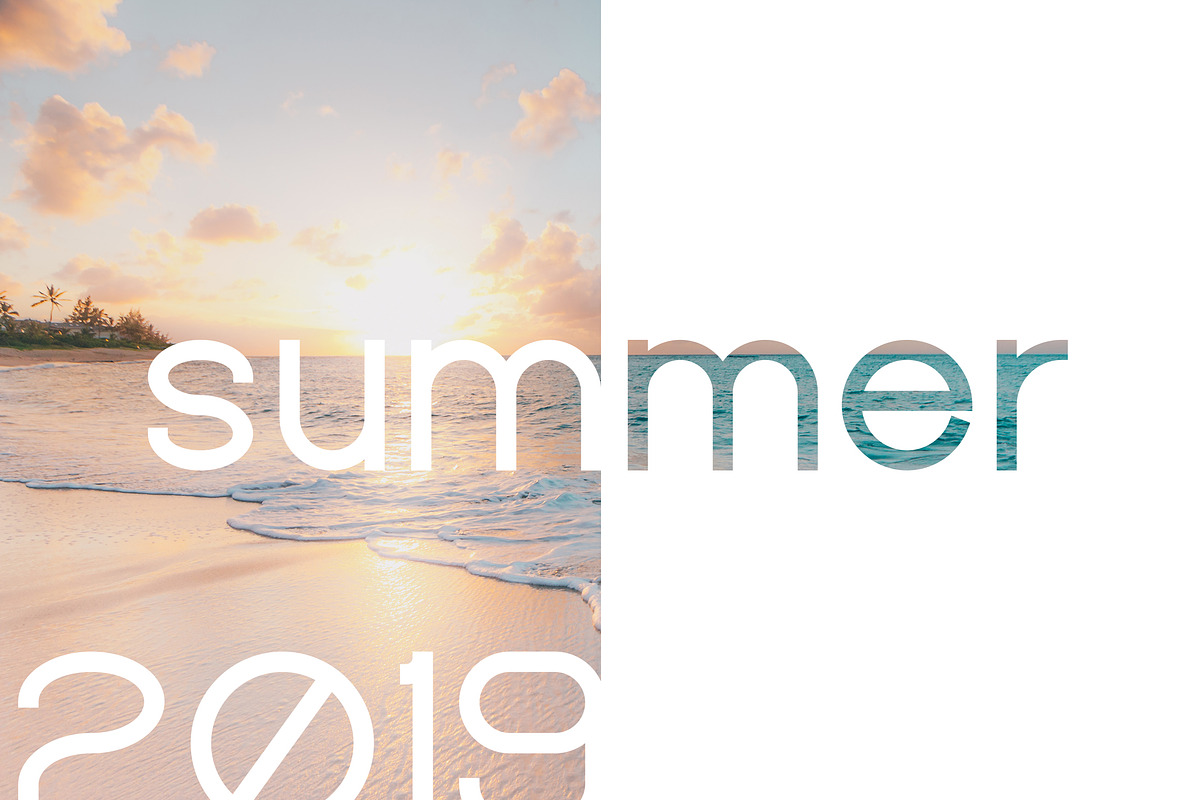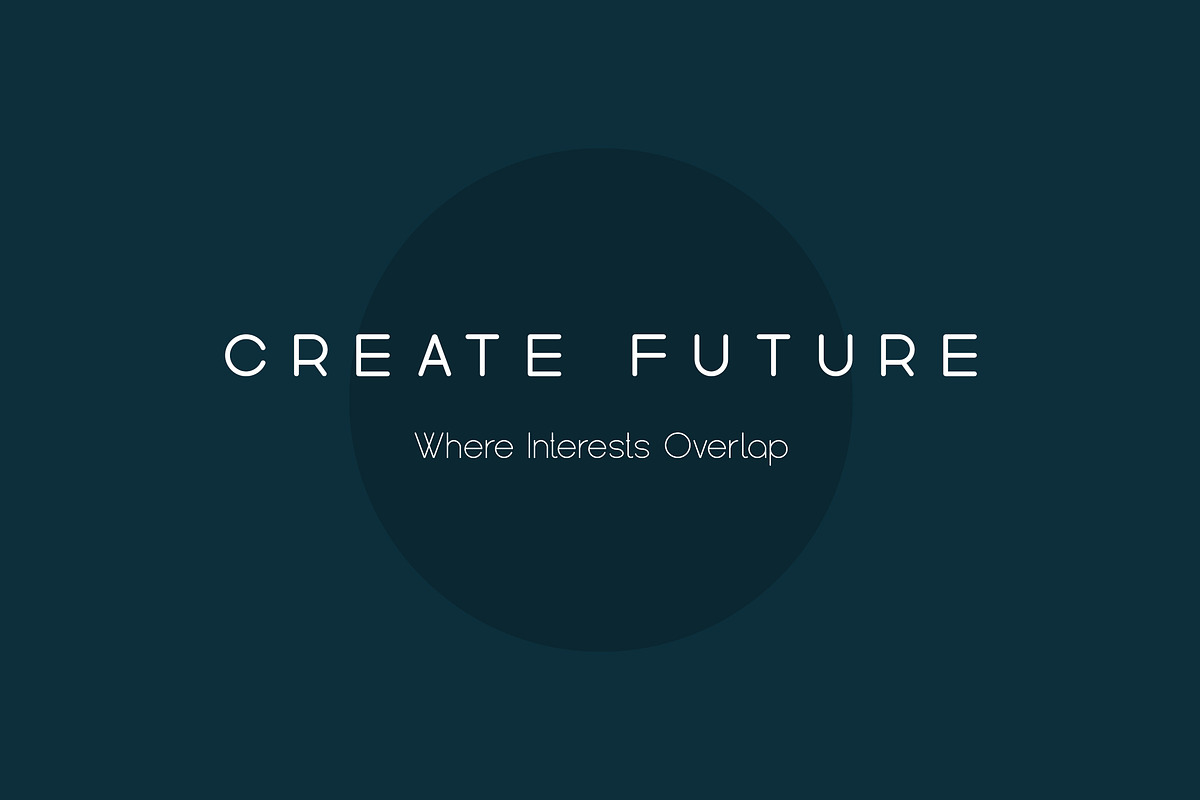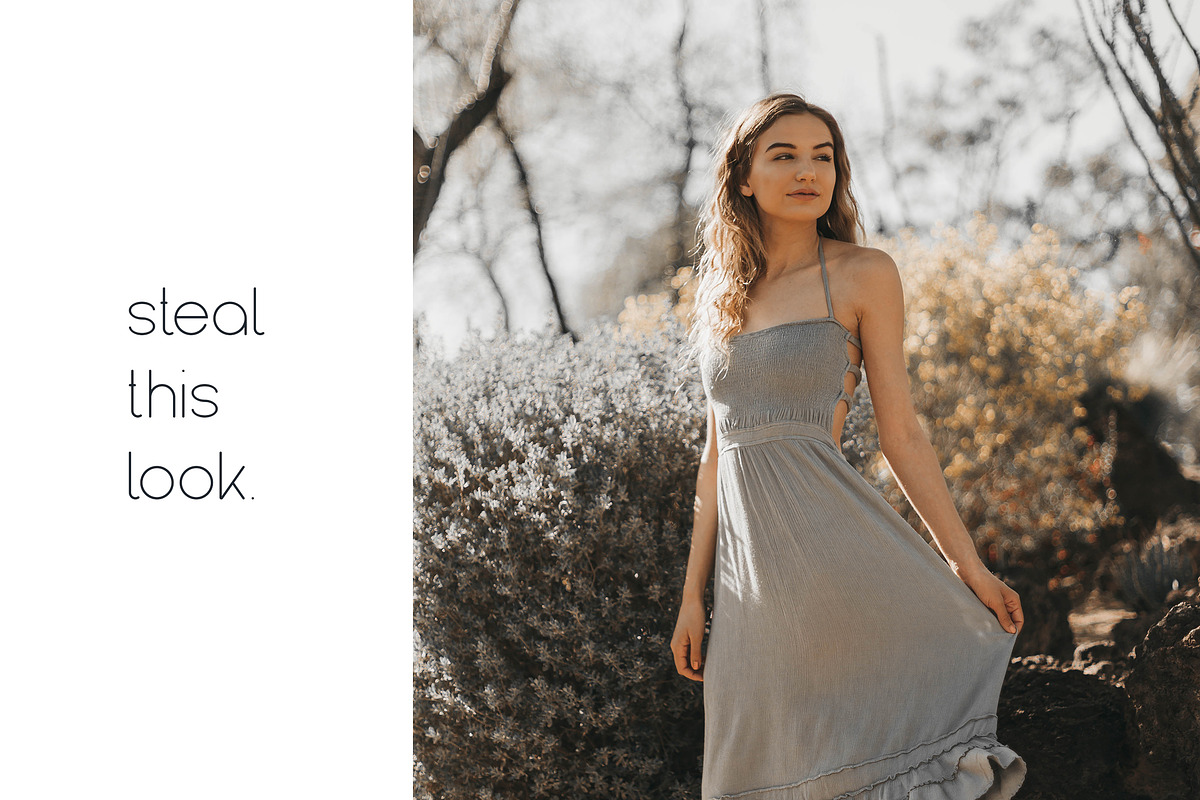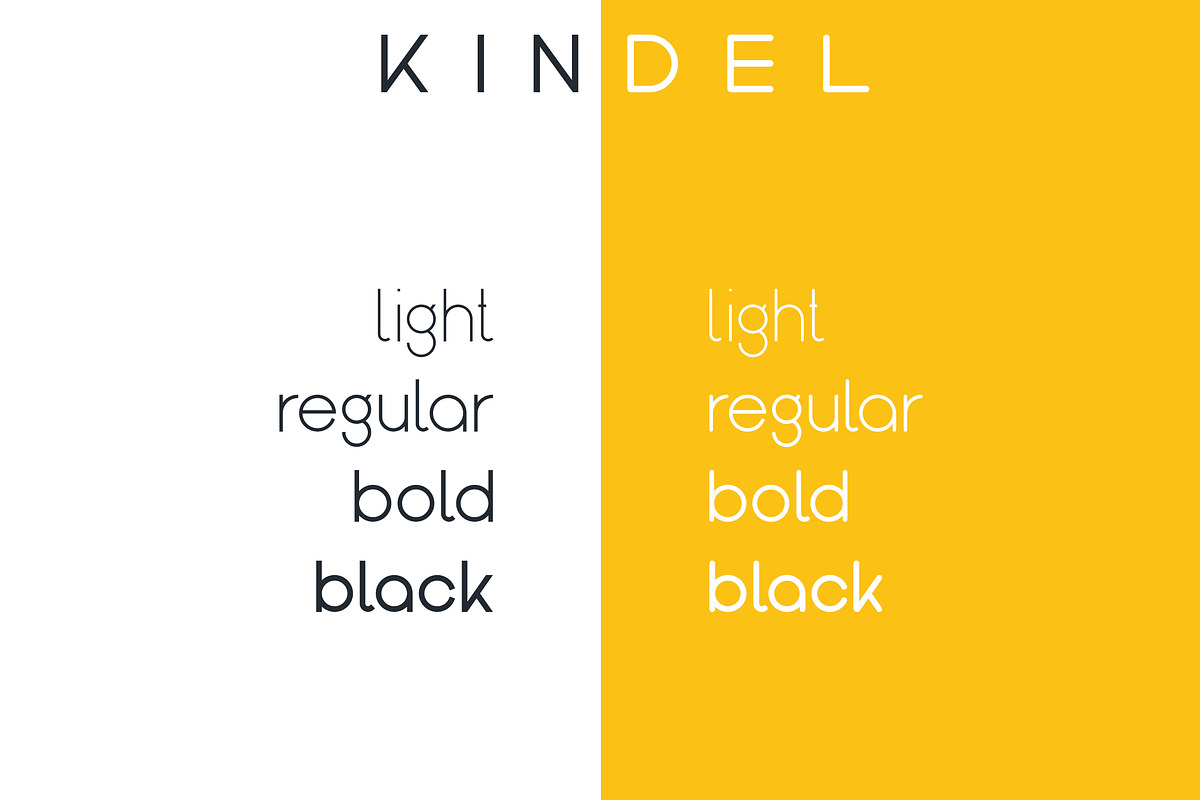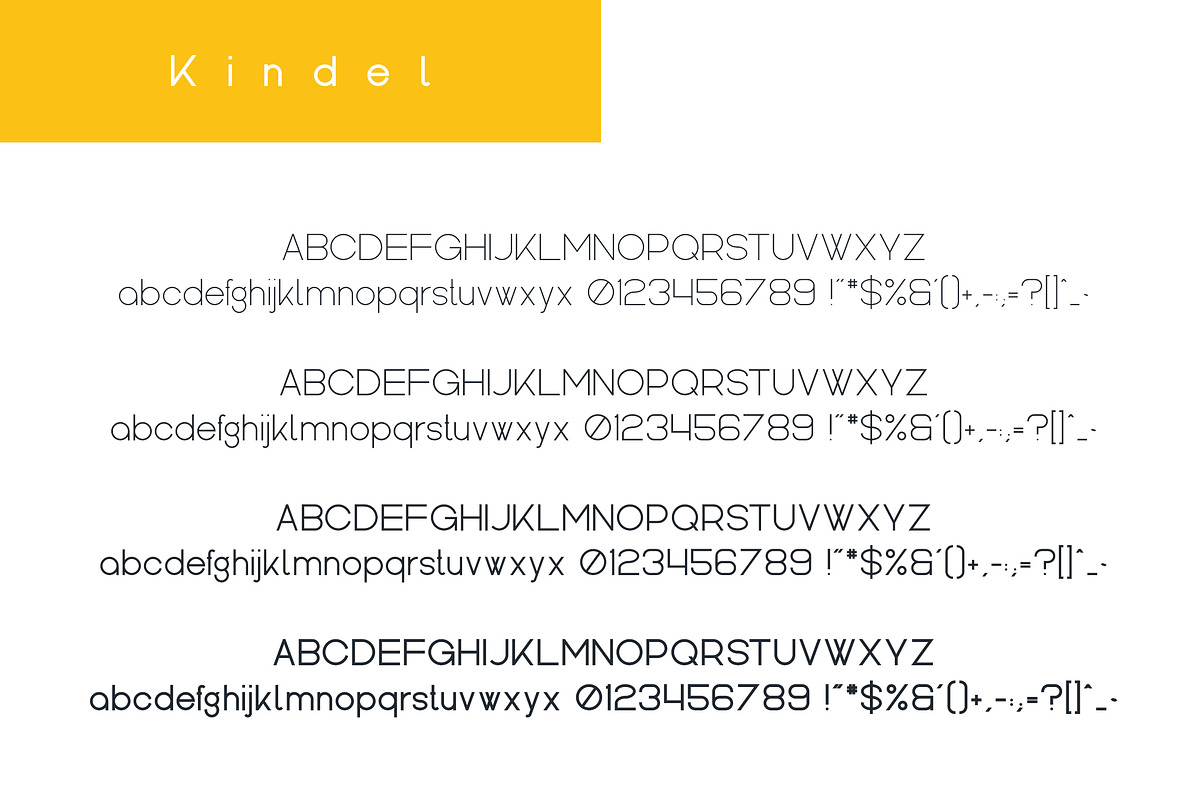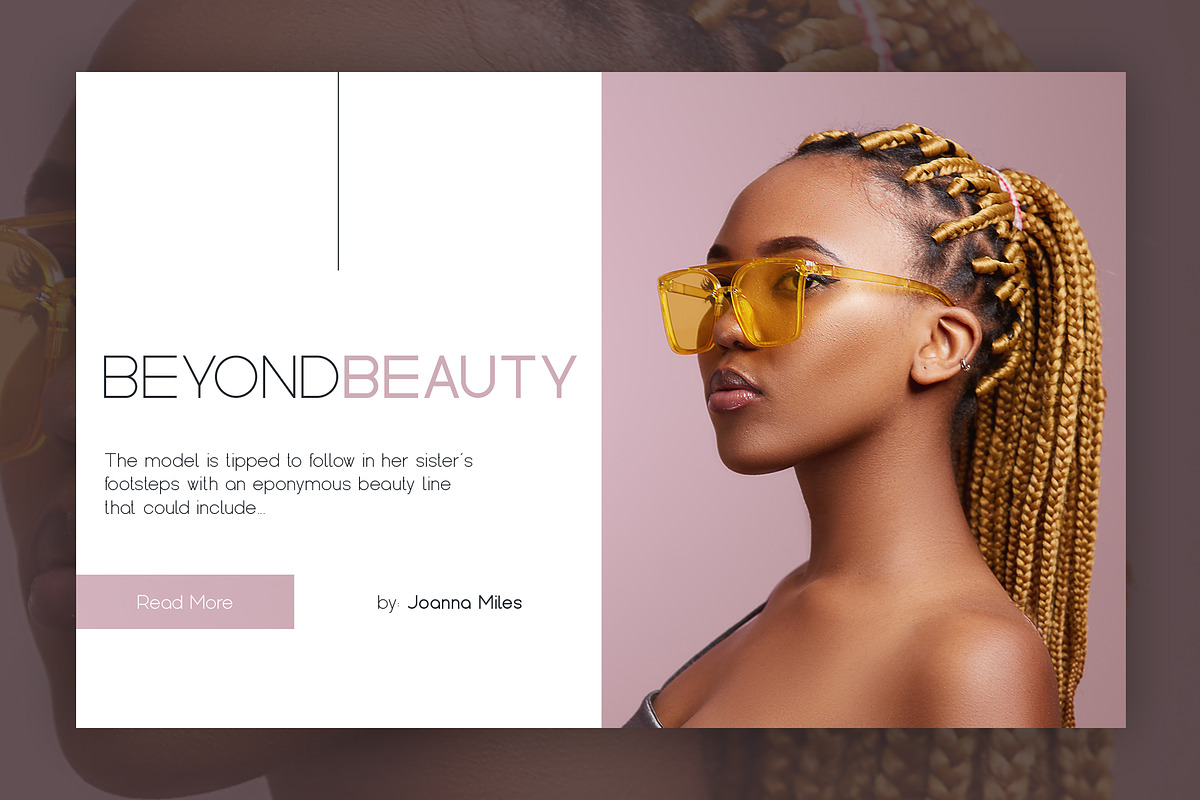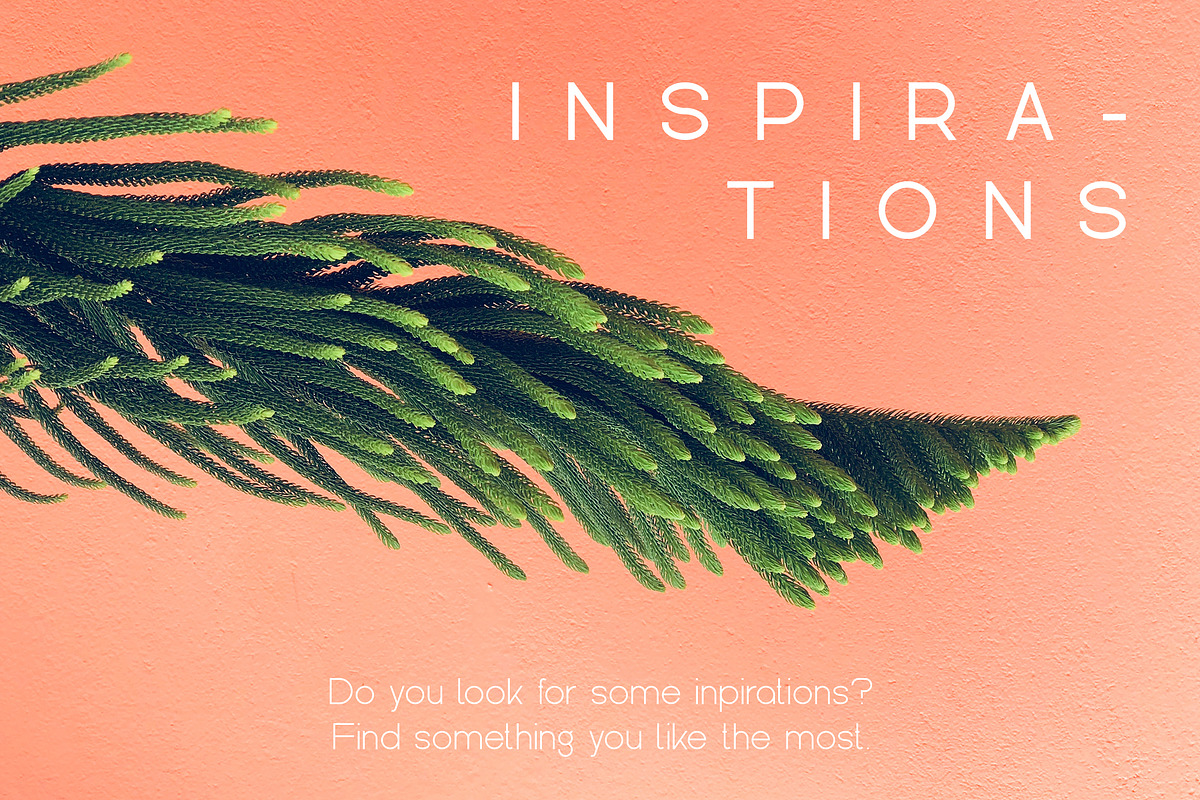
Kindel - Sans Serif Typeface
INTRODUCING Kindel - Sans Serif Typeface | 8 fonts
Kindel is modern, clean typeface with total of 8 font styles and multilingual support. It's a very versatile font that works great in large and small sizes.
Kindel is perfect for branding projects, home-ware designs, product packaging, magazine headers - or simply as a stylish text overlay to any background image.
Uppercase,lowercase, numeral,punctuation & Symbol
Light ( straight and rounded )
Regular ( straight and rounded )
Bold ( straight and rounded )
Black ( straight and rounded )
Kindel - Sans Serif Typeface by VP Fonts fits naturally into Branding, posters, packaging, typography.